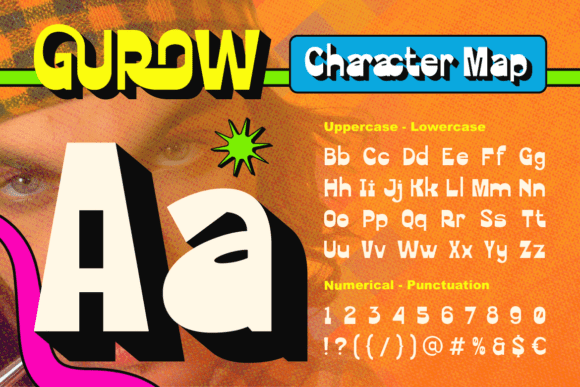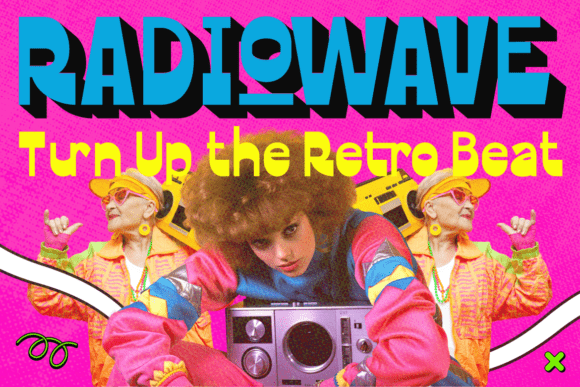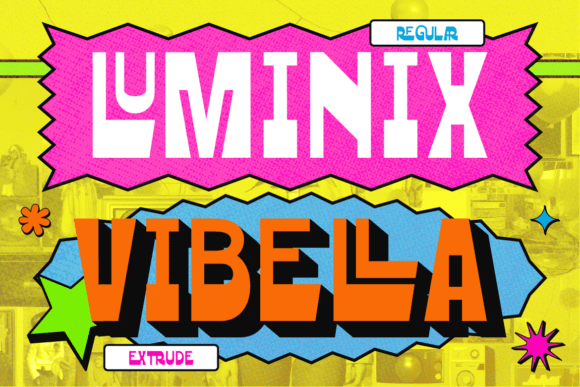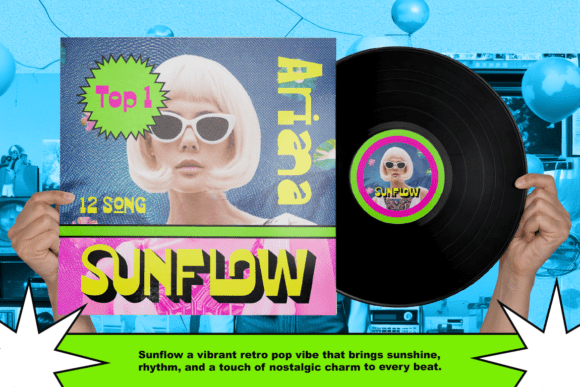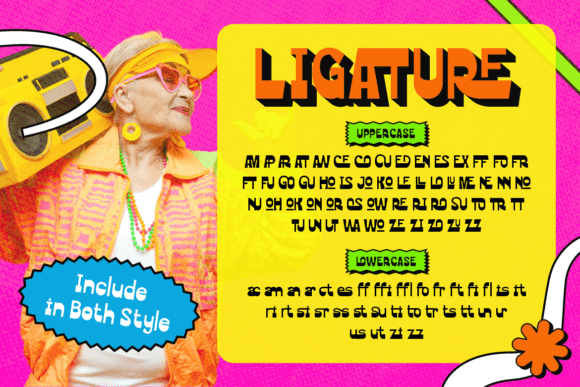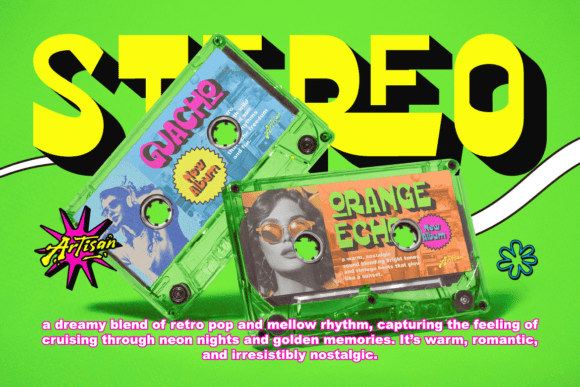
The Ultimate Retro Revival: Meet Gurow Font
Remember the rush of creating a design that truly stands out? The moment when every element falls into place, and your vision comes alive in a burst of color and energy? For designers, that feeling is the ultimate goal – and Gurow Font is here to help you achieve it.
Gurow is a bold, pop retro font that captures the wild spirit of the 80s with a modern twist. This font is not afraid to break the rules, embracing a vibrant, loud aesthetic that’s perfect for anyone looking to make their design pop. With two styles (Regular & Extrude) and extra ligatures, Gurow Font gives you the tools to create eye-catching titles, posters, album covers, and social media graphics that demand attention.
Gurow Font Key Features
- Font Family: Gurow is a sans-serif font family designed for digital use.
- Unique Characteristics: Gurow features a distinctive geometric shape and a clean, modern aesthetic, making it suitable for use in digital interfaces, signage, and other applications where readability and visual appeal are crucial.
Gurow Font Review
Gurow Font is a unique and quirky sans-serif font that I had the chance to review. I was initially drawn in by its bold and playful personality, which I think would be perfect for a children’s book or a fun website.
- Expressive and whimsical feel: Gurow Font has a distinct, hand-drawn look that’s hard to replicate with other fonts.
- Clear readability: Despite its playful nature, Gurow Font remains easy to read and understand.
- Variety of weights: Gurow Font comes in several weights, from light to bold, which adds to its versatility.
- Not suitable for formal use: Gurow Font’s playful feel makes it better suited for casual or creative projects.
- May be too bold for some contexts: Gurow Font’s bold personality can be overwhelming if used in large quantities.
- Limited language support: Gurow Font may not support all languages or character sets, which could be a limitation for multilingual projects.
Overall, I think Gurow Font is a great choice for designers looking for a fun and expressive font. However, it may not be the best fit for every project. Use it sparingly and in contexts where its playful personality will shine through.
Gurow Font is ideal for creative and artistic projects such as:
- Typography-based designs
- Brand identity and logos
- Infographics and data visualizations
For optimal results, use Gurow Font in bold or italic styles to create emphasis and add visual interest to your designs.
Alternatives to Gurow Font for Designers
Bebas Neue is a sans-serif font with a modern, clean design. It is perfect for use in titles, headings, and any other area where you want to add a touch of elegance. Bebas Neue is similar to Gurow Font in its clean and minimalist approach, but it has a more geometric feel and is often used in digital products and branding.
Avenir Next
Avenir Next is a geometric sans-serif font with a sophisticated, modern design. It is ideal for use in body text, titles, and headings where you want to convey a sense of professionalism and luxury. Avenir Next has a similar feel to Gurow Font, but it is more versatile and can be used in a wide range of applications, from print to digital.
Montserrat is a sans-serif font with a urban, geometric feel. It is perfect for use in titles, headings, and body text where you want to add a touch of modernity and edginess. Montserrat is similar to Gurow Font in its clean and minimalist approach, but it has a more industrial feel and is often used in digital products and branding.
Lato is a sans-serif font with a clean, modern design. It is ideal for use in body text, titles, and headings where you want to add a touch of elegance and sophistication. Lato has a similar feel to Gurow Font, but it is more versatile and can be used in a wide range of applications, from print to digital, and has a more humanist feel compared to Gurow Font.